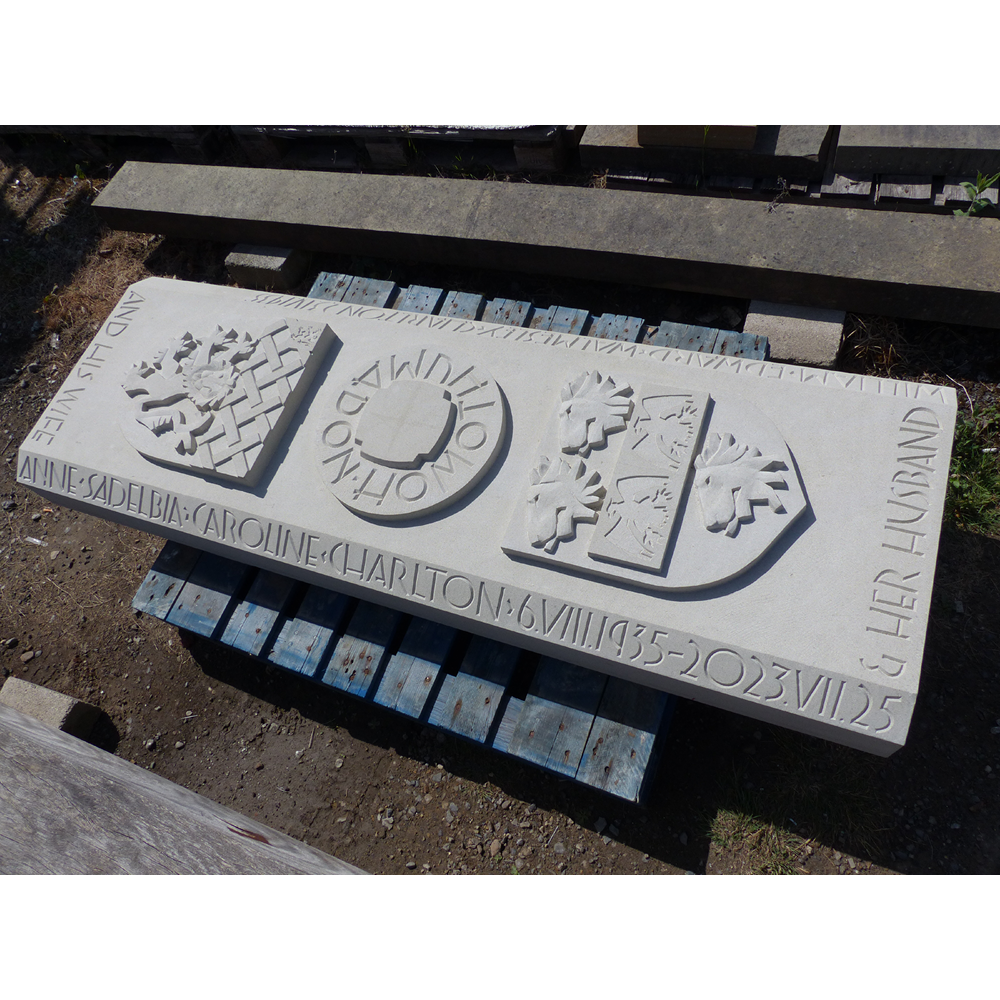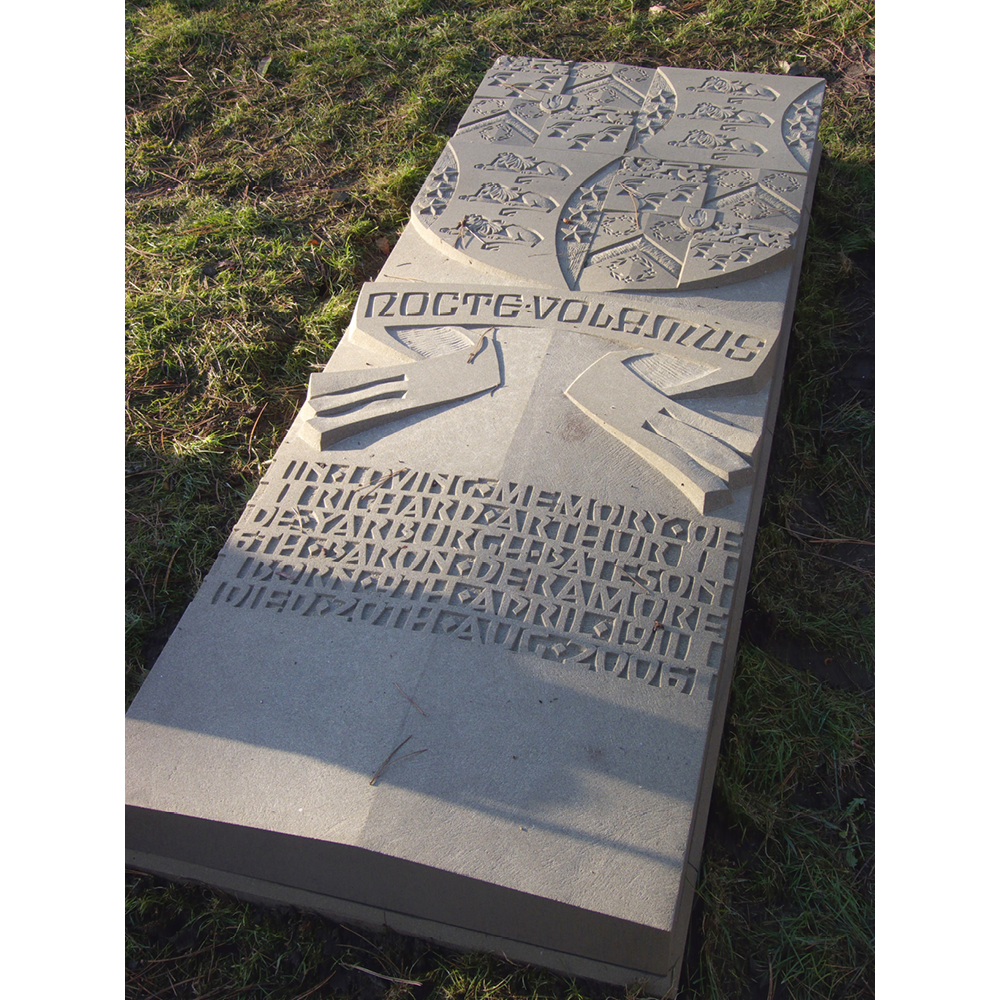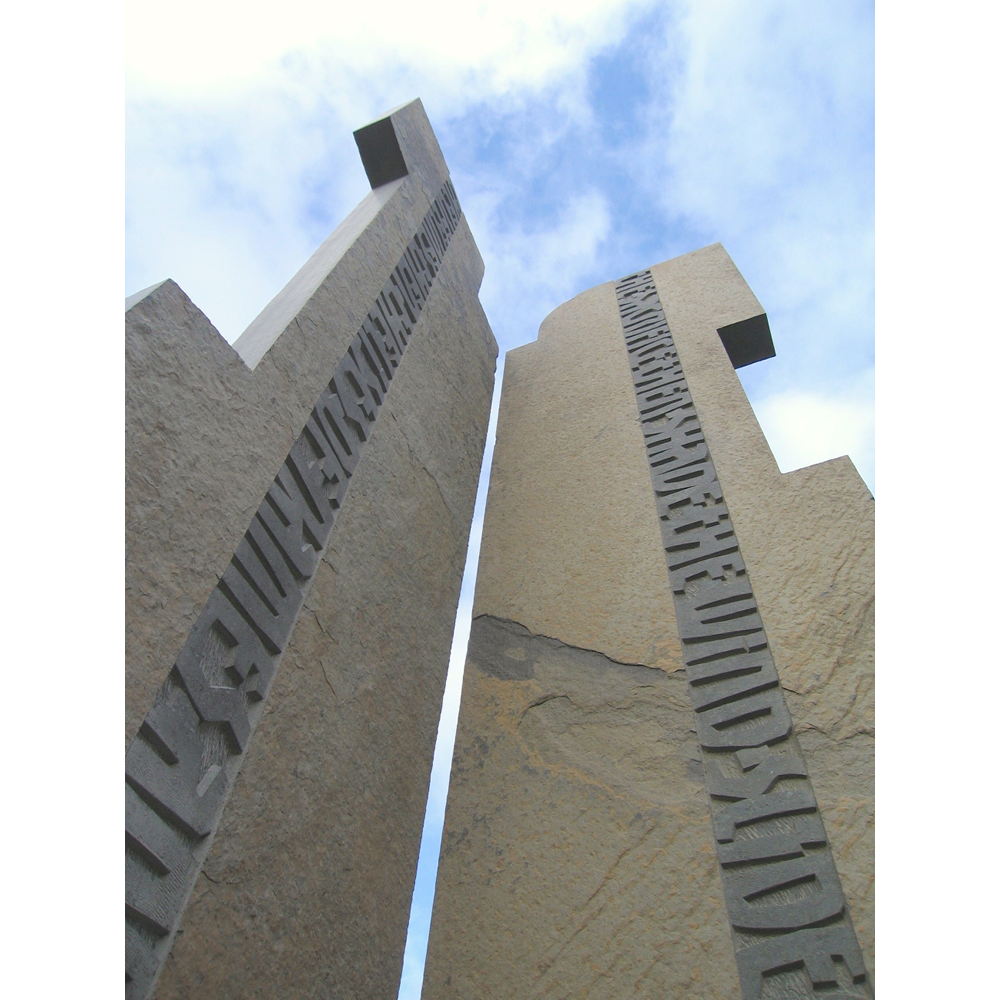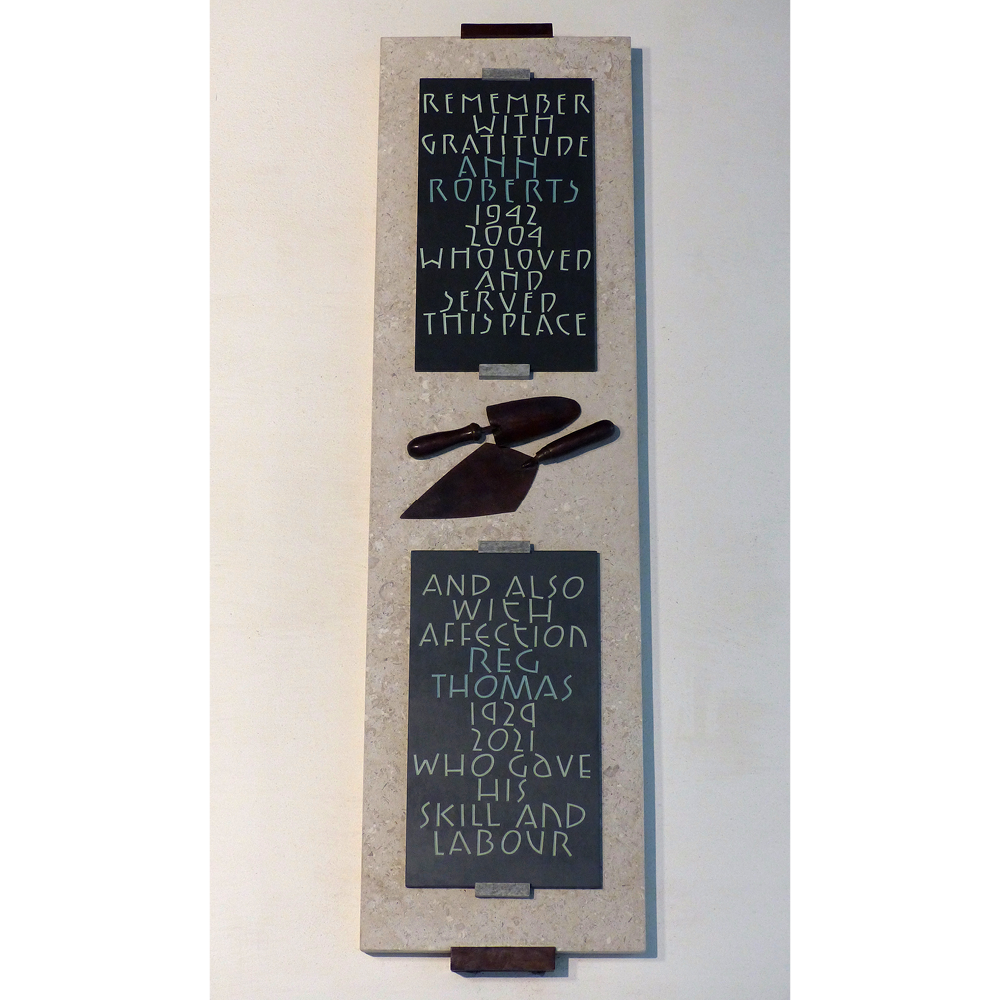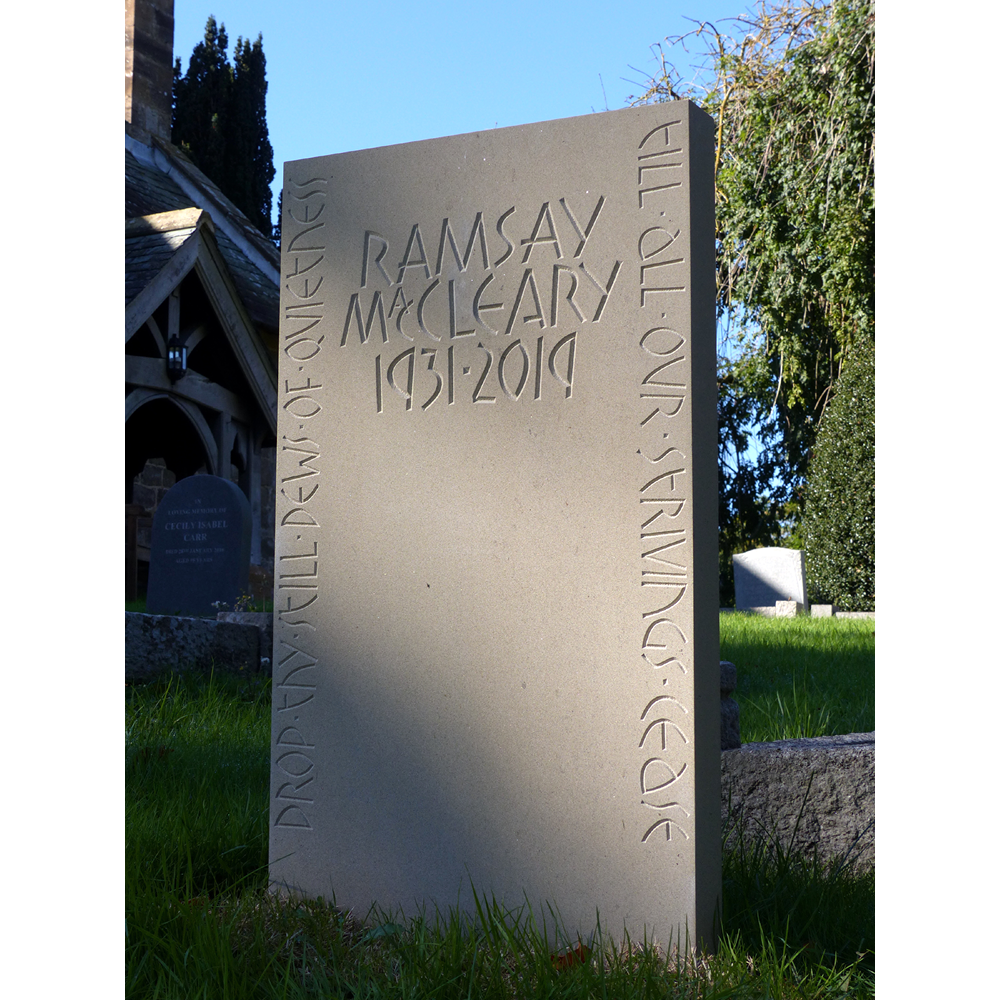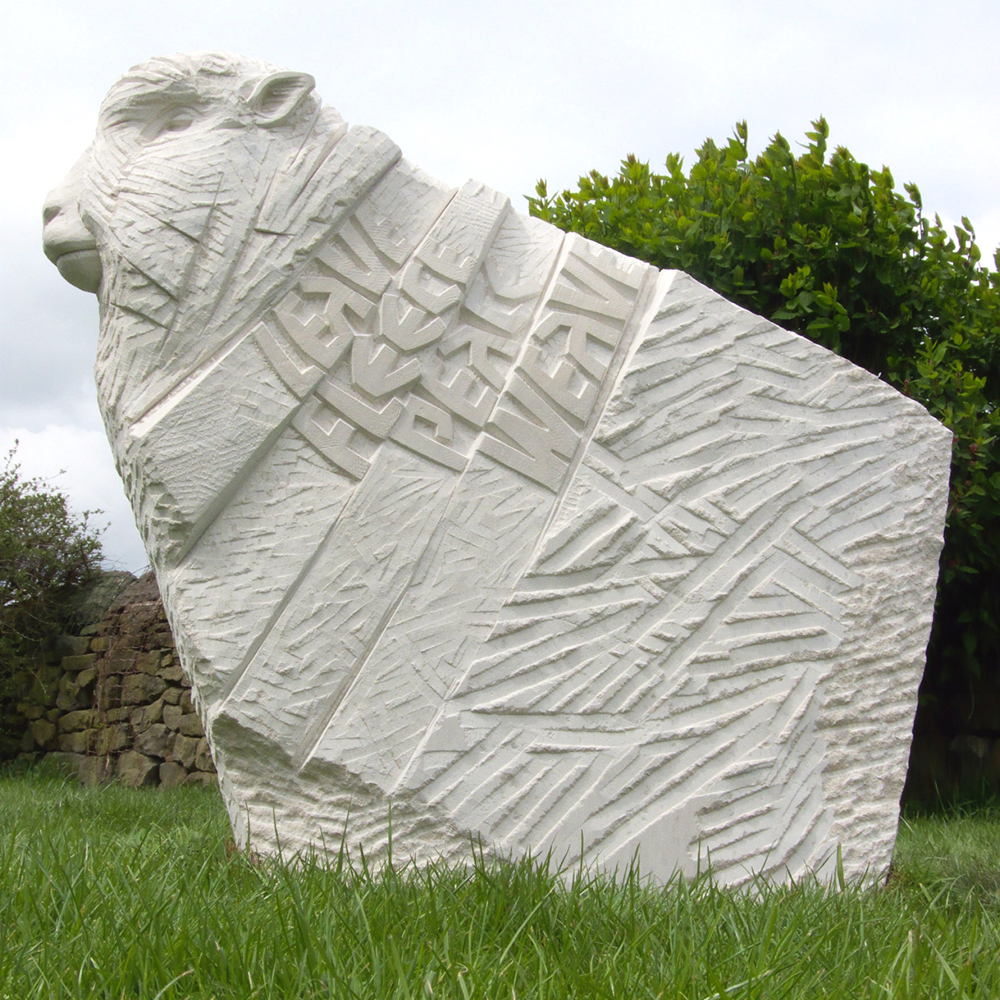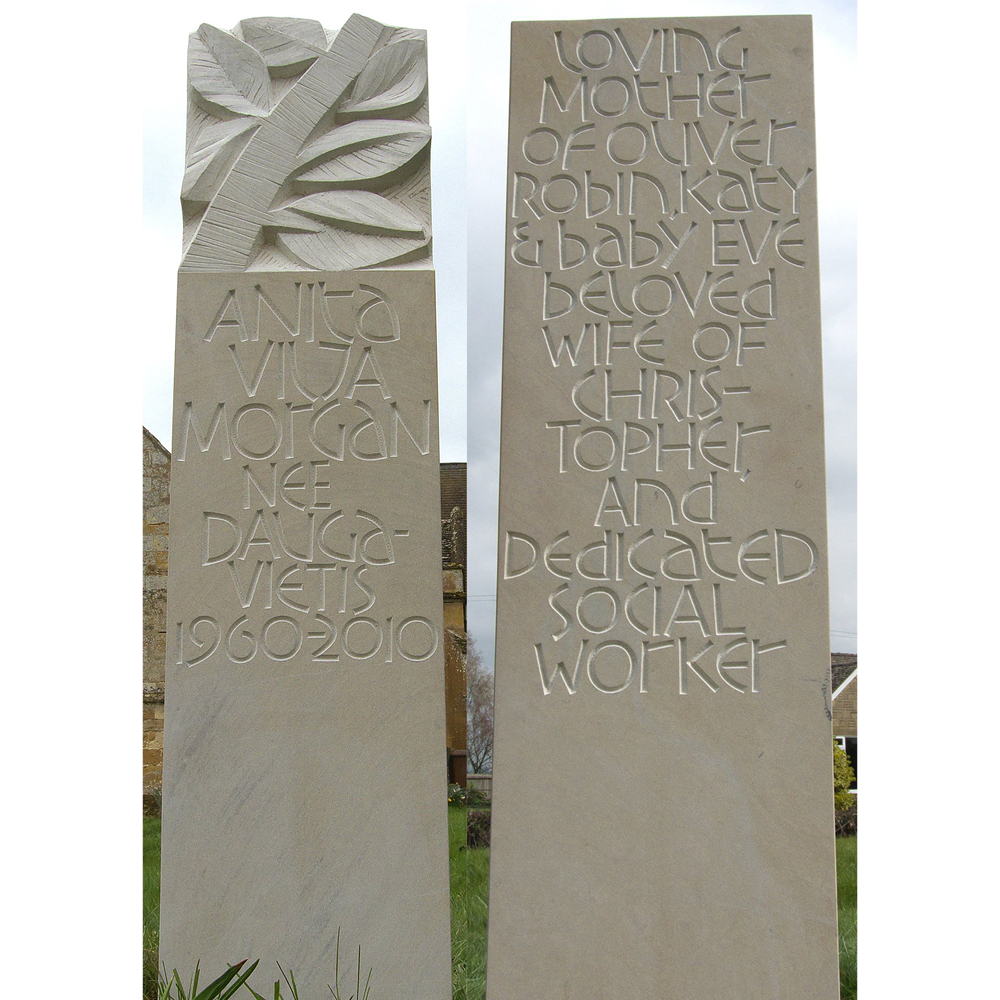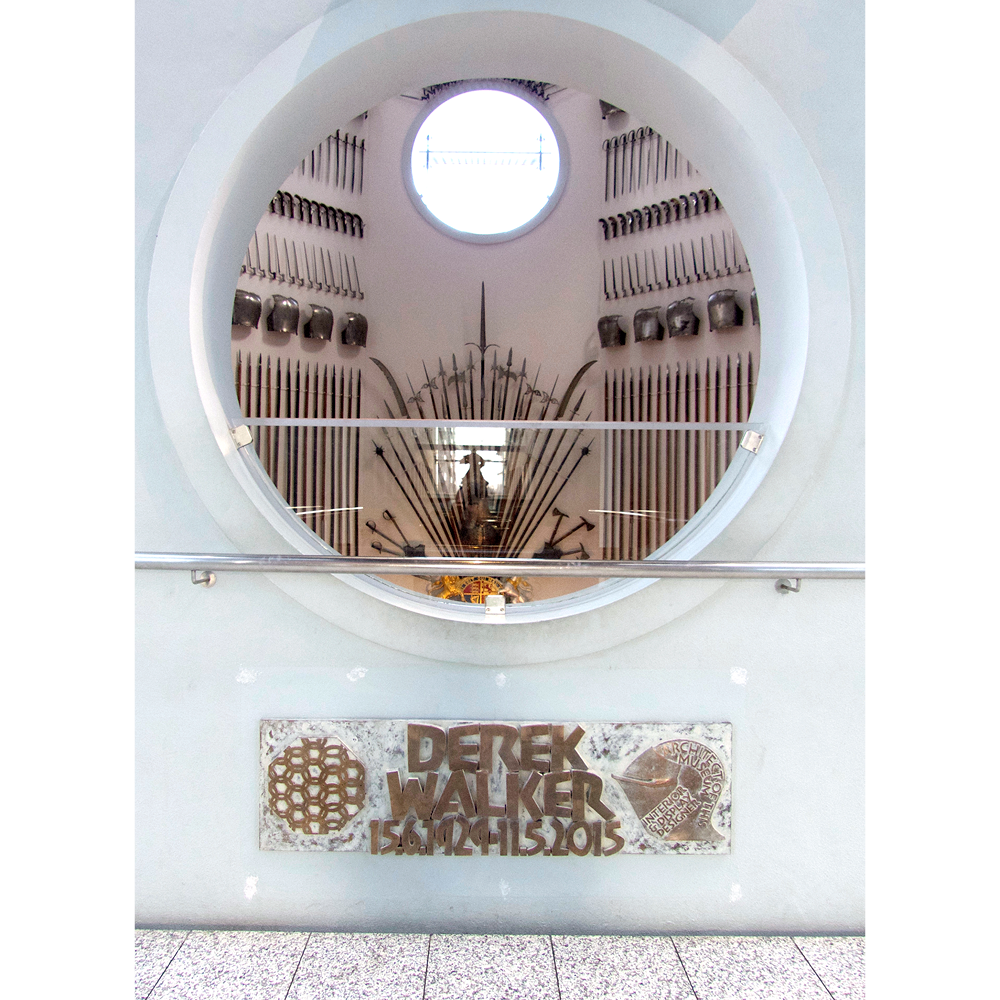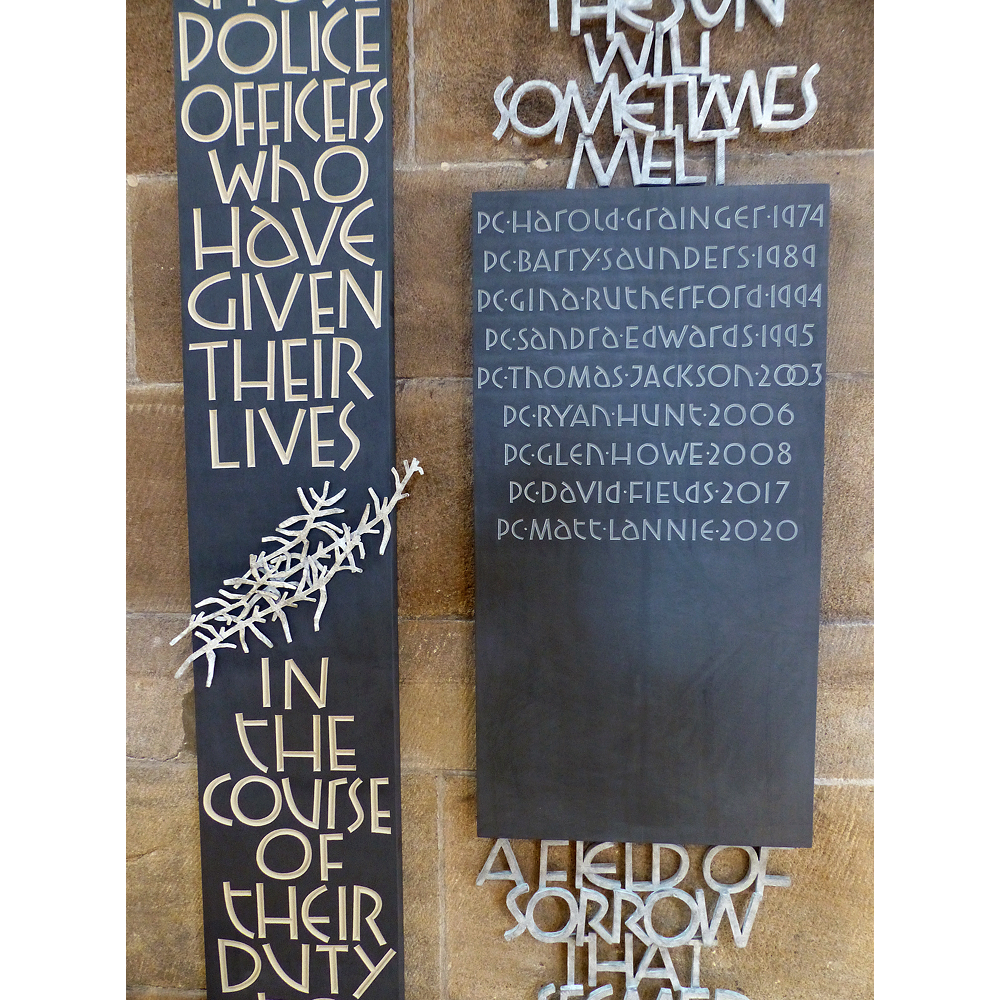
Charles Gurrey
The majority of my work is done to commission, whether from architects, cathedrals and churches, public art agencies, local authorities or private clients.
The medium for the work will depend upon what is appropriate for a particular commission. This might be stone; bronze; wood; aluminium; slate; wrought-iron; plaster; concrete - or some combination of materials. Above all perhaps, I seek to make work that has the character of a wrought thing, rather than something ‘fabricated’ or produced by processes which are at some remove from a direct making of work.
All the commissions illustrated here were made as memorials, whether private or public.